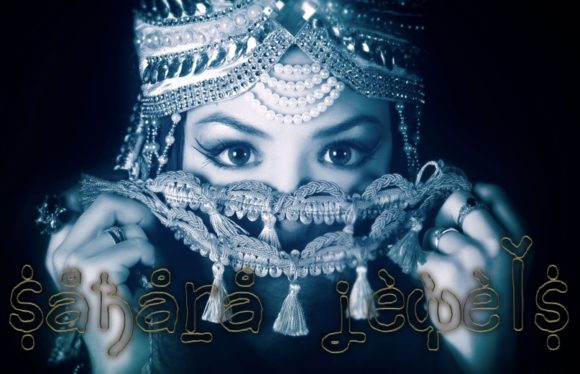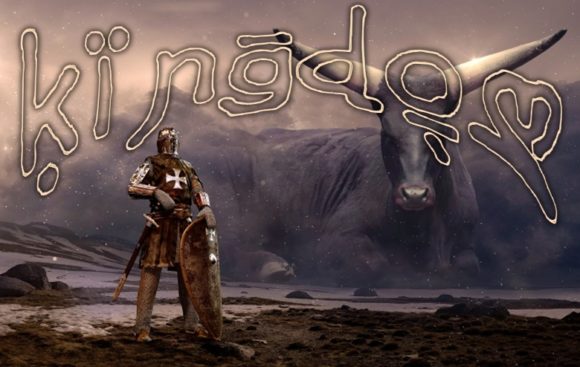
Crown Outline Font: Elevate Your Designs with Regal Elegance
In the world of typography, fonts play a crucial role in conveying the tone and personality of a design. For designers and crafters looking to add a touch of sophistication and whimsy to their projects, the Crown Outline Font is an excellent choice. This unique and quirky display font is designed to make your creative ideas stand out, and its versatility allows it to be matched with an incredibly large set of projects.
The Royal Treatment: What is Crown Outline Font?
Crown Outline Font is a distinctive display font that features an elegant, crown-inspired design. Its outline style gives it a modern and sleek look, making it perfect for designs that require a touch of luxury and refinement. The font’s quirky and unique personality shines through in its intricate details, making it an excellent addition to any design project.
Key Features of Crown Outline Font
- Unique and Quirky Design: The Crown Outline Font boasts a one-of-a-kind design that is sure to grab attention and set your designs apart from the rest.
- Versatility: This font can be paired with a wide range of projects, from elegant wedding invitations to playful craft projects.
- Modern and Sleek: The outline style of the font gives it a modern and sleek look that is perfect for designs that require a touch of sophistication.
- Elegant and Refined: The crown-inspired design of the font adds a touch of luxury and refinement to any project.
Crown Outline Font is an excellent choice for designers and crafters looking to add a touch of personality to their projects. Whether you’re working on a logo, branding materials, or craft projects like wedding invitations, party decorations, or DIY signs, this font is sure to make your designs stand out.
Tips for Using Crown Outline Font
- Pair with Bold Colors: The Crown Outline Font looks stunning when paired with bold, bright colors. Try pairing it with a bold red or blue to add a pop of color to your design.
- Use for Headings and Titles: The font’s unique design makes it perfect for headings and titles. Use it to add a touch of elegance and sophistication to your designs.
- Experiment with Different Sizes: The Crown Outline Font looks great in a variety of sizes. Experiment with different sizes to find the perfect fit for your project.
In conclusion, the Crown Outline Font is a unique and quirky display font that is perfect for designers and crafters looking to add a touch of sophistication and whimsy to their projects. Its versatility, modern design, and elegant personality make it an excellent choice for a wide range of projects. So why not give it a try and see how it can elevate your designs to the next level?
Get Creative with Crown Outline Font